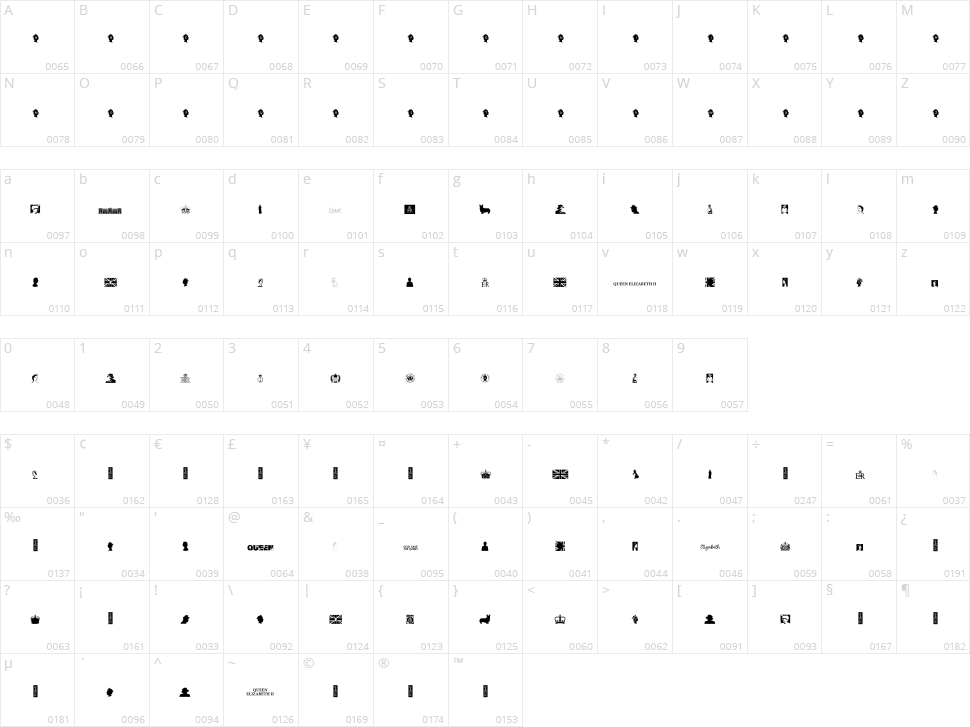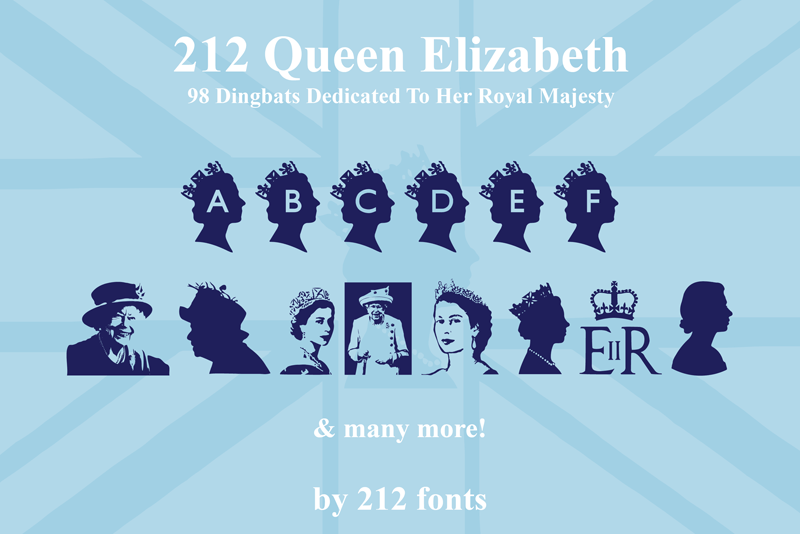
212 Queen Elizabeth
Note of the author Queen Elizabeth is a 98-glyph dingbat font dedicated to all things related to Her Majesty, may she rest in peace! It is Free. Check out my other fonts or request a custom one here: